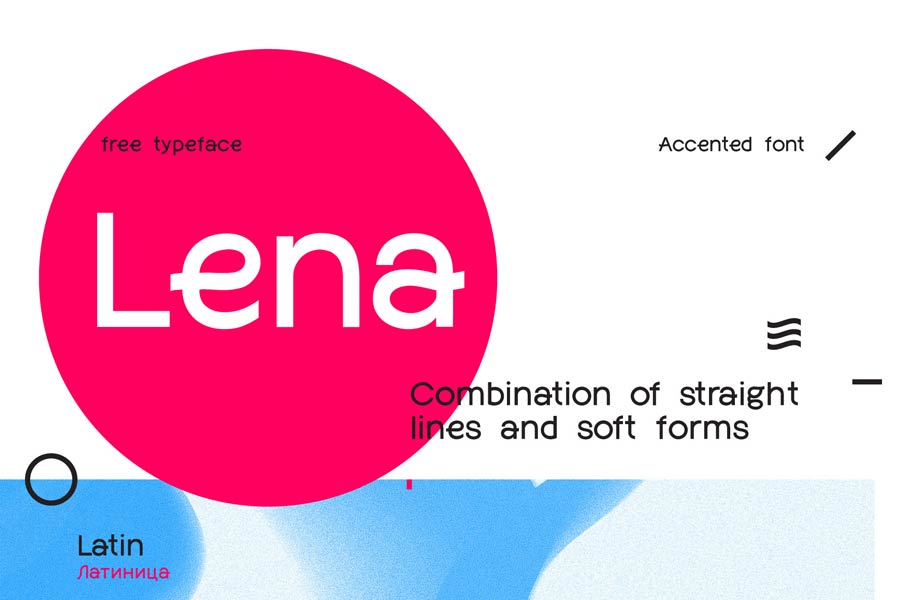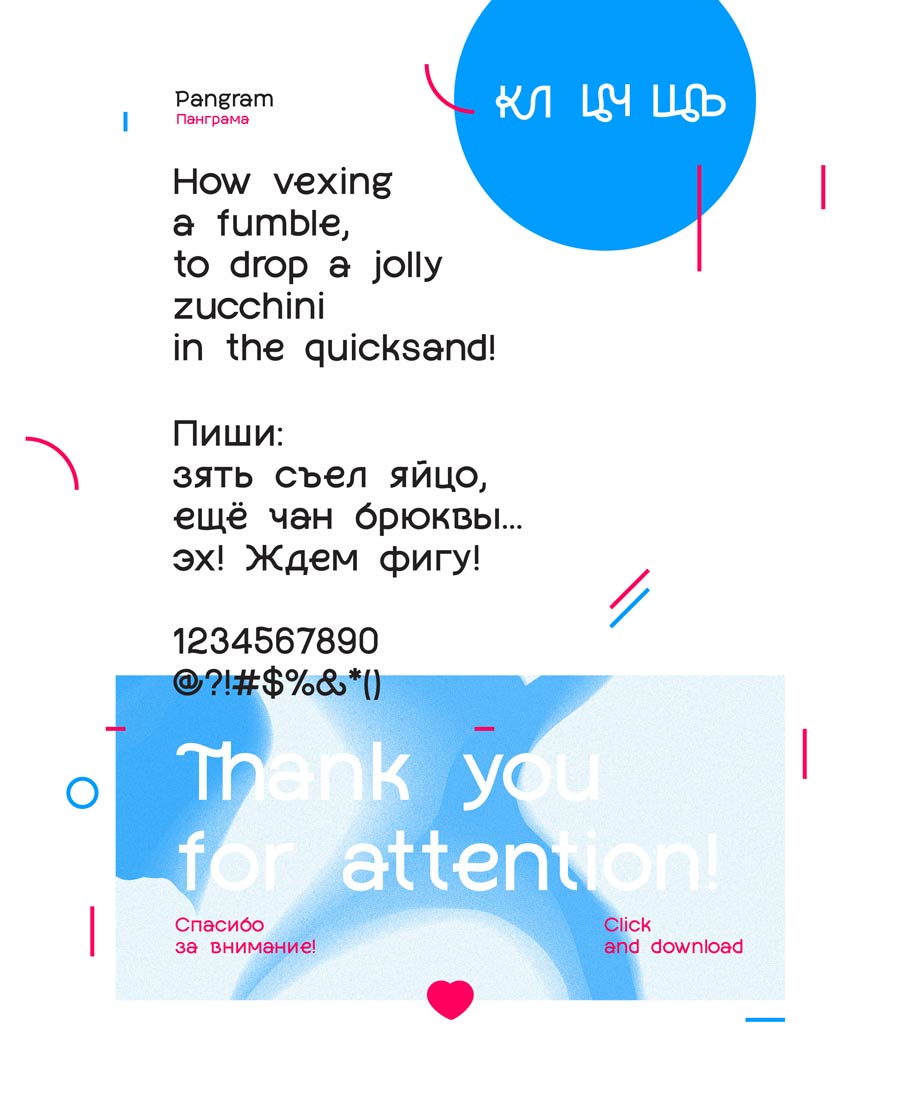
Lena is a free sans serif font that features both straight lines and soft forms. The soft form usually in sort of a wavy line, soften the rigid letter forms and also making this font design truly unique. Lena supports Latin and Cyrillic characters, and it’s suitable for headlines, logotypes and poster designs.
- Designer: Vsevolod Abramov
- Category: Sans Serif